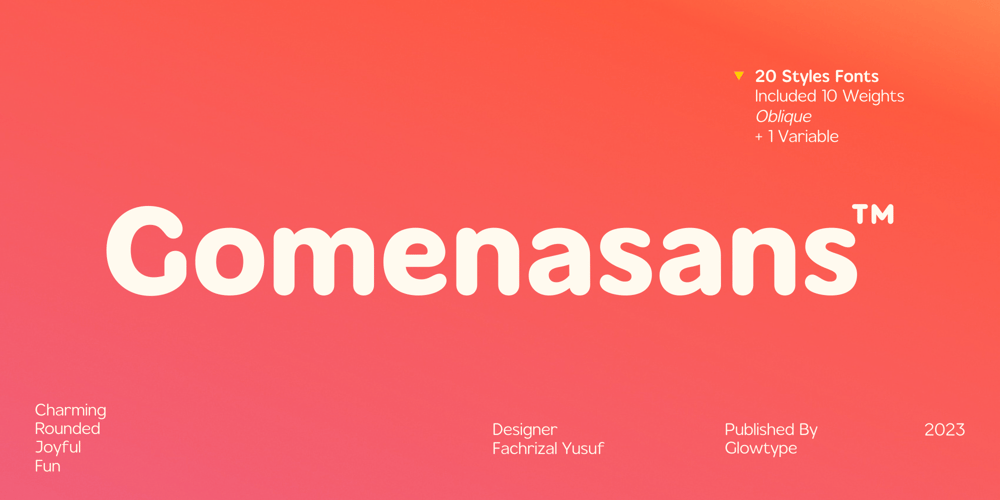
Gomenasans Variable Font Family was designed by Fachrizal Yusuf and published by Glowtype. Gomenasans Variable contains 1 styles and family package options. This is variable font from previous family Gomenasans.Inspired by several food products in Japan, bold, cute and cheerful, a round, chunky font with an original 80s touch. Proudly introducing Gomenasans, a rounded geometric sans.Gomenasans consisting of several types of weights, from thin to black and oblique with a total of 20 styles and variables. The perfect choice for all your branding needs.Cheers & enjoy! ๐